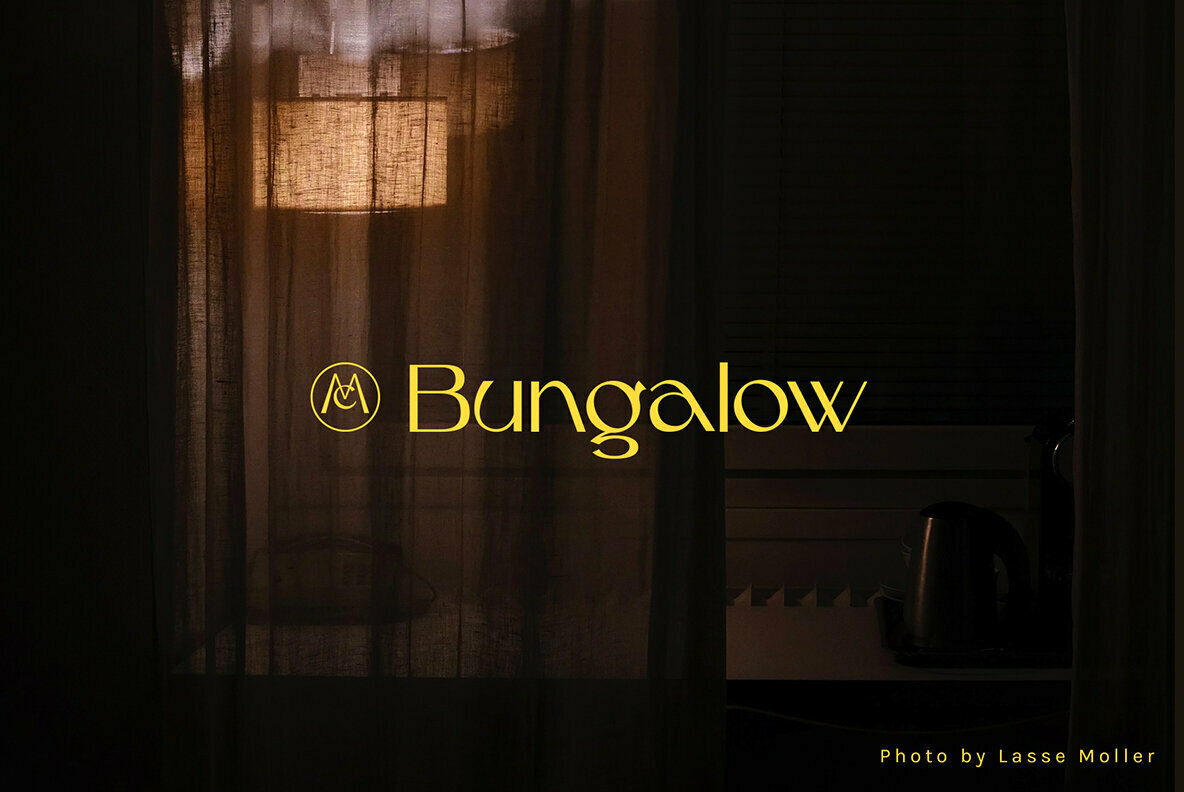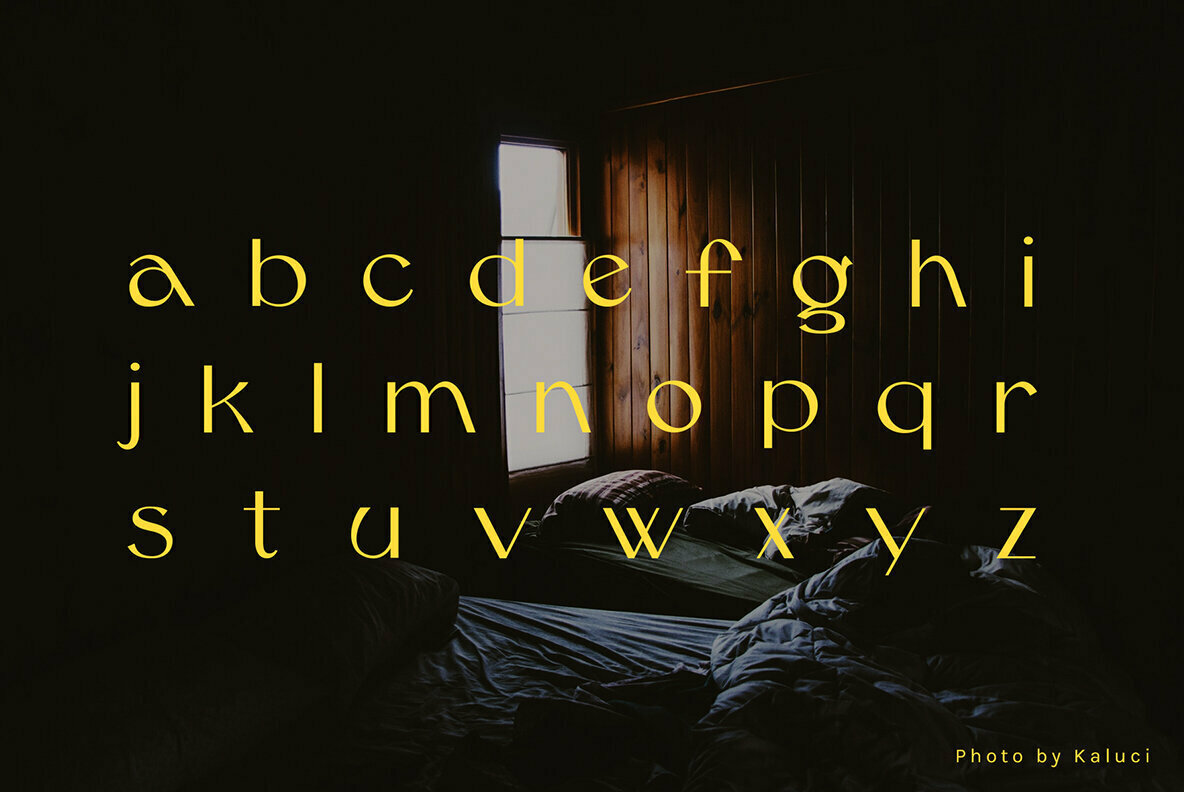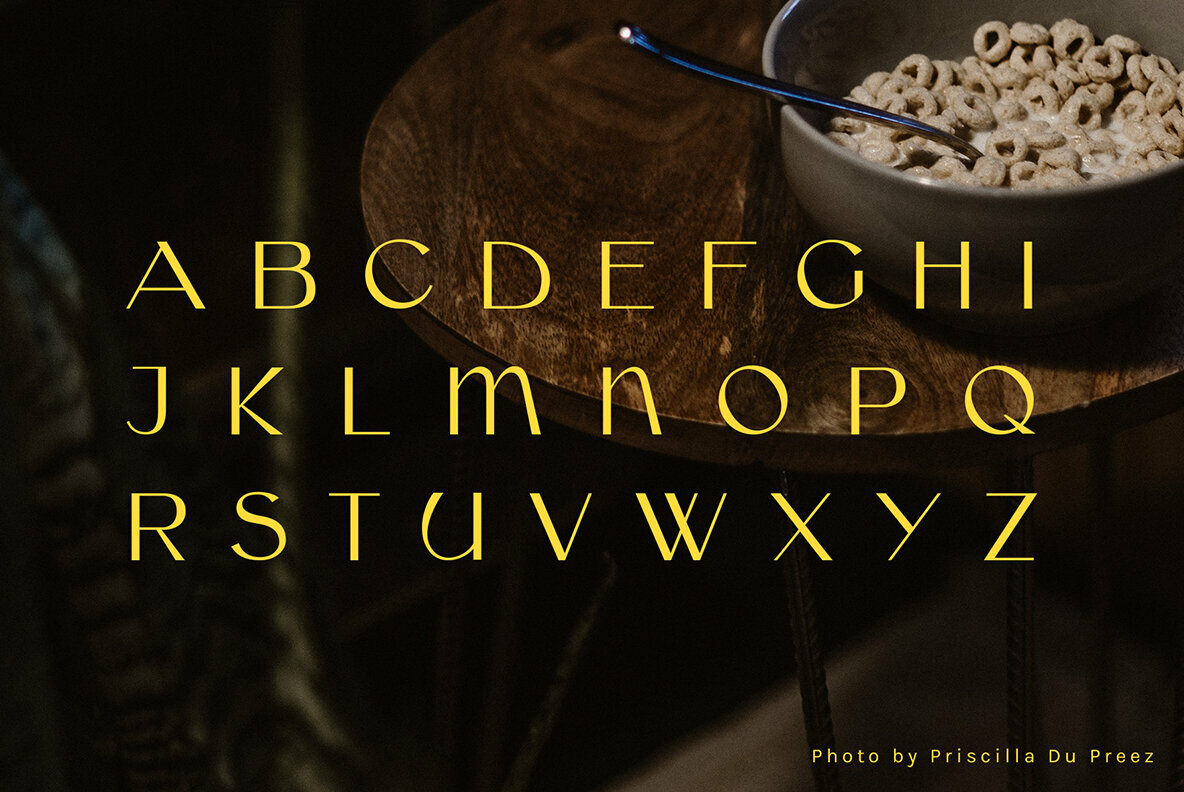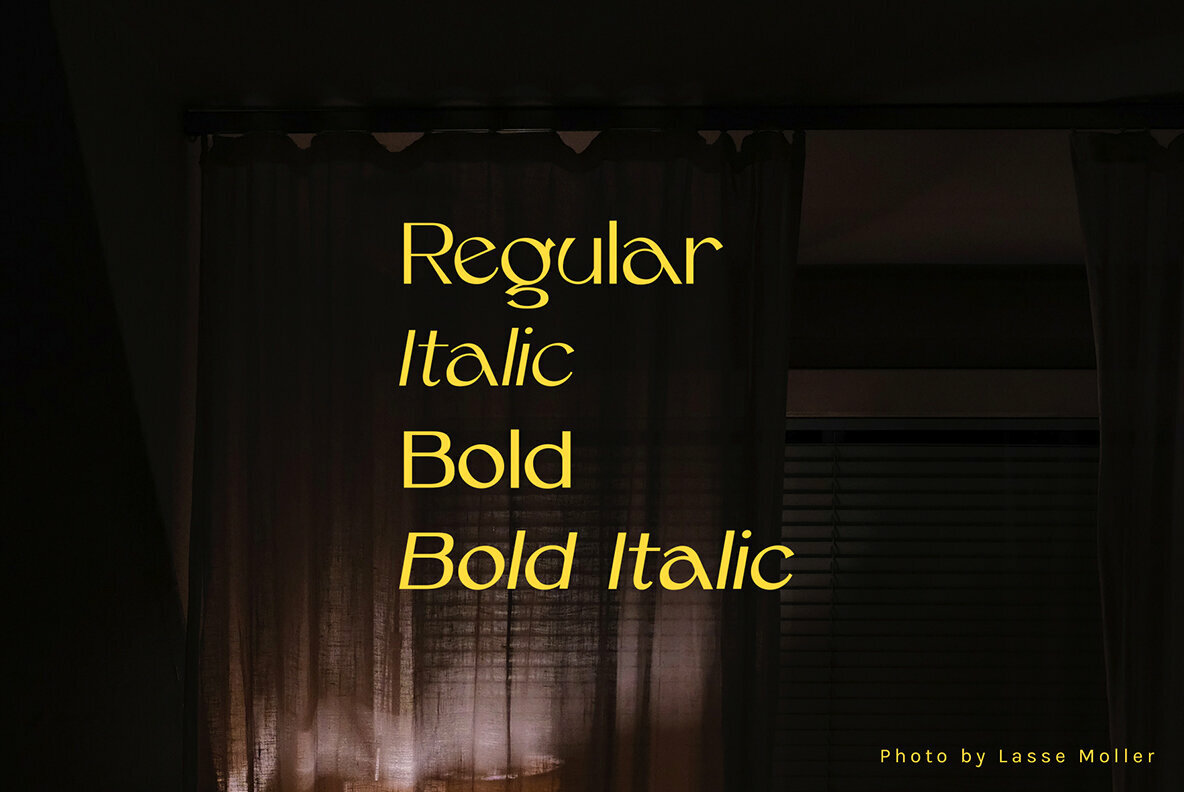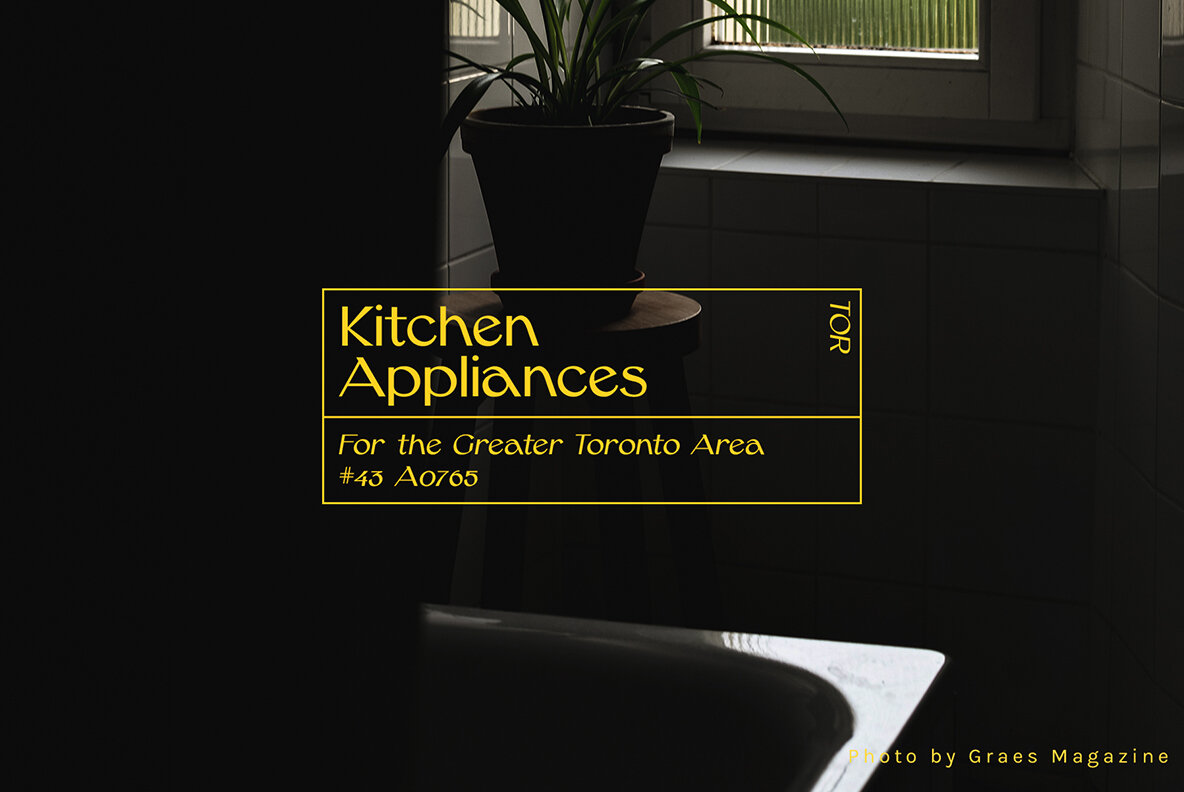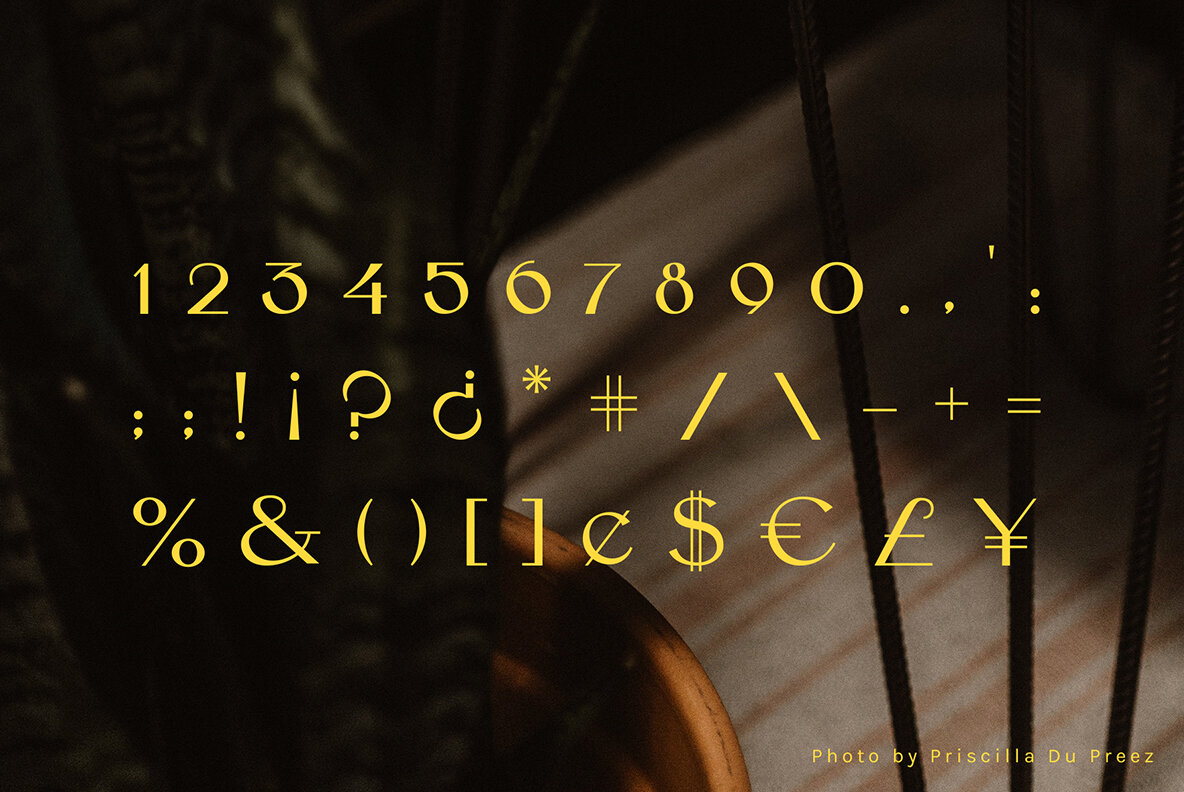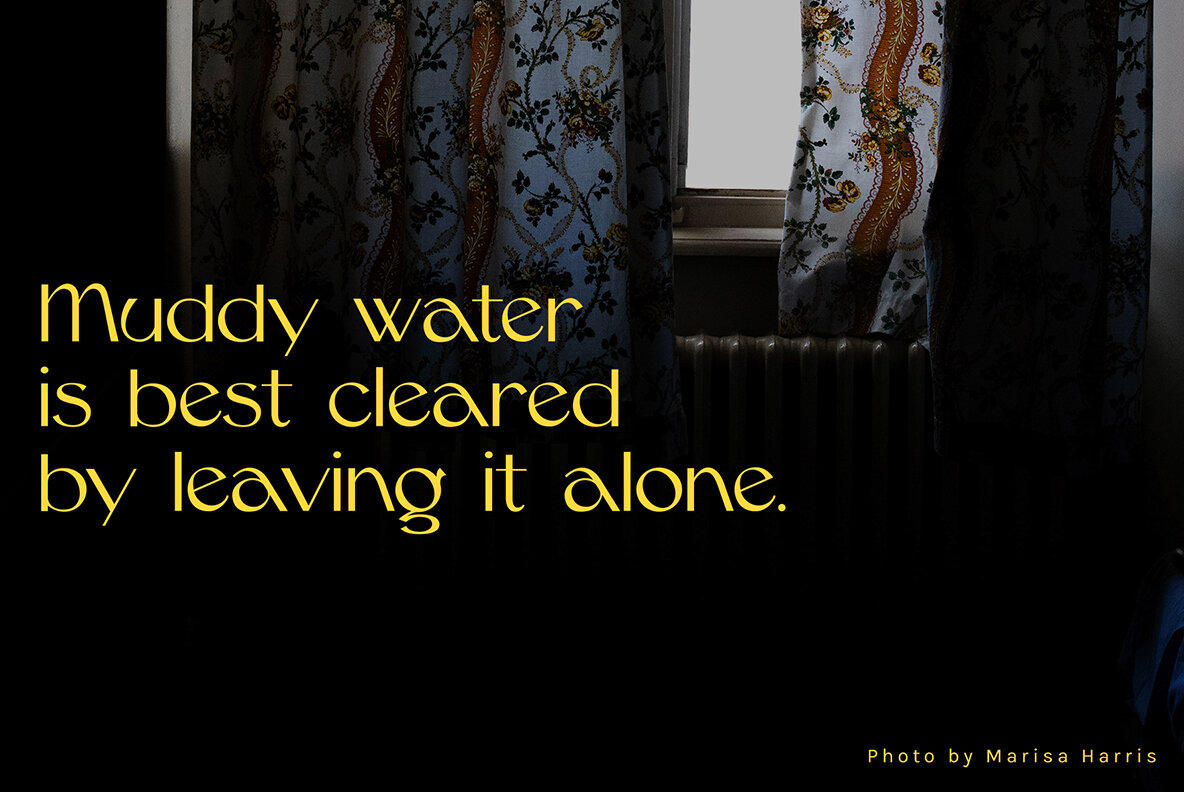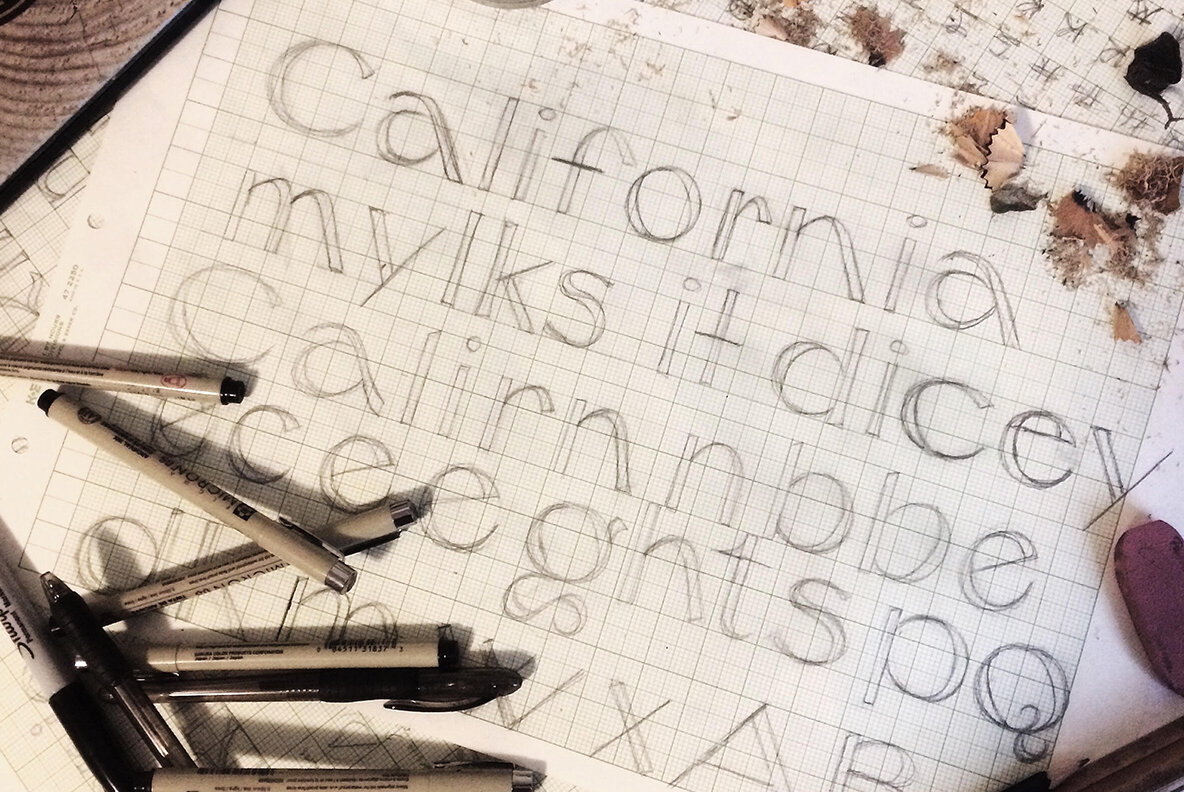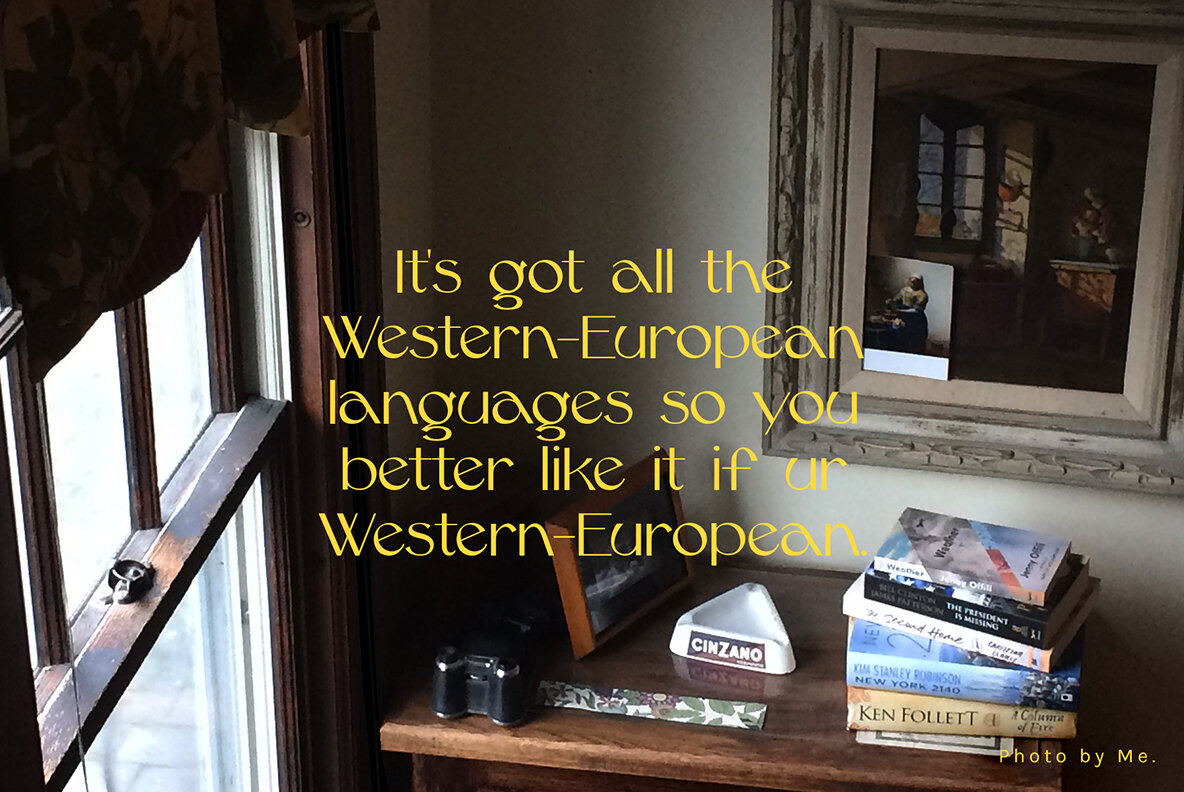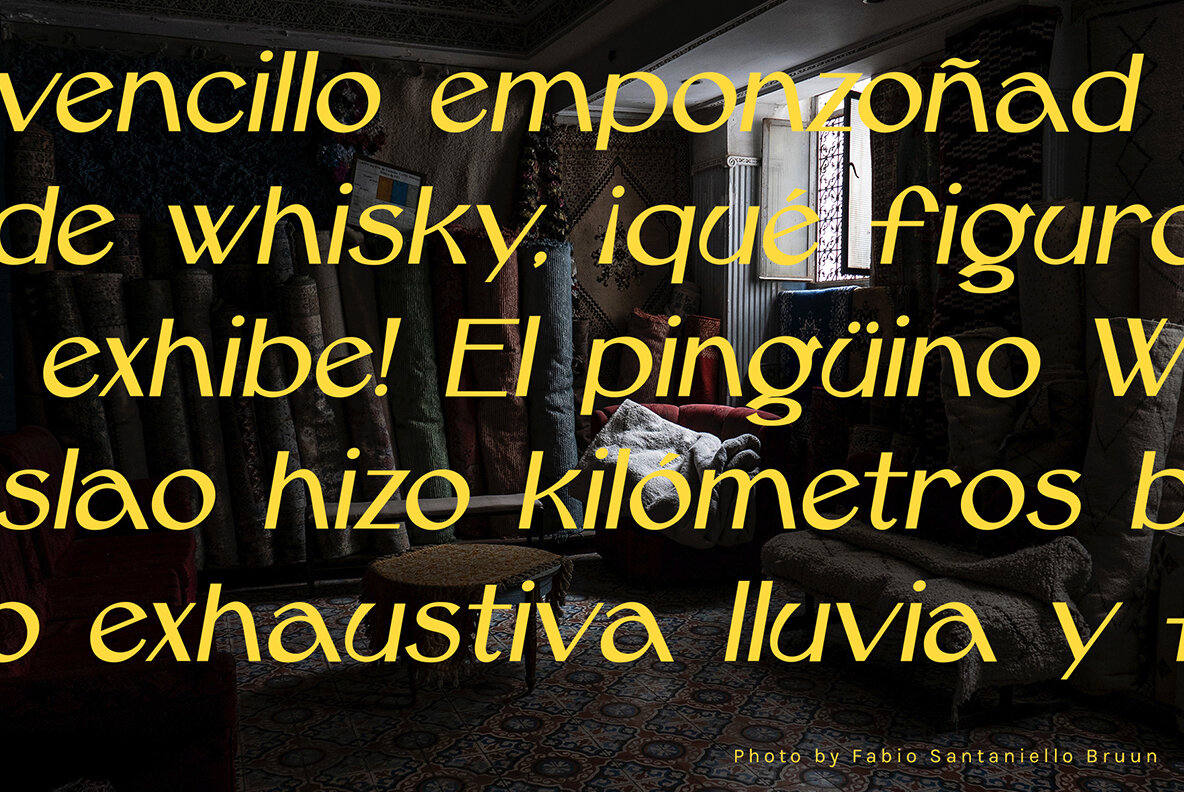
MC Bungalow Font
A hand-drawn typeface that makes you feel like you're relaxing on a Davenport couch. Humbling, retro, and homey. Available in all Western-European languages and more.